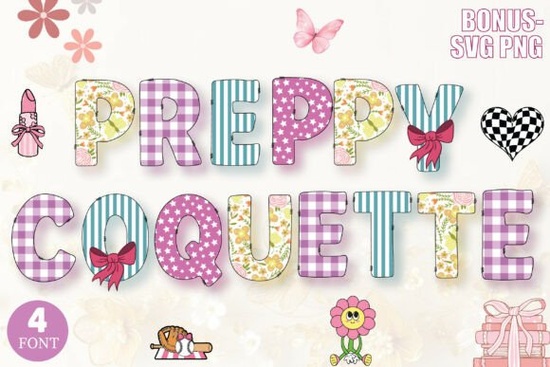
If you're looking for a decorative font that balances preppy charm with playful femininity without feeling too fussy or overly trendy the Preppy Coquette Decorative Font is a thoughtful, well-executed choice. It’s not just another script or display font; it’s a small but versatile bundle built around four distinct yet cohesive styles: Box, Flower, Star, and Simple. Each one carries the same light-hearted, polished energy think crisp lines, soft curves, and subtle decorative accents but offers enough variation to suit different projects and moods.
What makes this font bundle practical for real work?
Many decorative fonts look lovely in previews but fall short when you actually try to use them missing characters, inconsistent spacing, or limited language support. This bundle avoids those pitfalls. All four fonts include full uppercase and lowercase letters, numerals, punctuation, and basic multilingual support (including accented characters used in French, Spanish, and German). They’re also OpenType-enabled, so you’ll get ligatures and stylistic alternates where appropriate especially helpful if you’re designing invitations or social media graphics where small details matter.
Because each style shares the same underlying rhythm and proportions, mixing them within one design feels intentional, not chaotic. For example, you might use Preppy Coquette Star for a headline on a baby shower invitation, then switch to Simple for body text keeping readability high while reinforcing the theme. That kind of flexibility saves time and helps maintain brand consistency across products like planners, stickers, or sublimation mugs.
Who benefits most from using Preppy Coquette?
Print-on-demand sellers will appreciate how cleanly these fonts scale and convert to vector-friendly formats (included in both OTF and TTF). Whether you’re layering text over pastel backgrounds for Etsy mugs or creating layered SVG files for Cricut users, the clean outlines hold up well even at small sizes. The Flower and Star versions add visual interest without sacrificing legibility, which helps listings stand out in crowded marketplaces.
Crafters and scrapbookers often need fonts that pair well with paper textures, washi tape, and hand-drawn elements. These fonts do that naturally especially Box, which has a gentle, outlined structure that echoes vintage stationery. And because Creative Fabrica includes commercial licenses with clear terms, you can confidently use them on physical goods you sell no surprise restrictions later.
Small business owners building cohesive social media kits or printable collections (like weekly planners or habit trackers) will find the bundle especially useful. You don’t need to hunt down separate fonts for headers, quotes, and labels the four options cover most common uses. Plus, they coordinate easily with other popular bundles on the platform, like the Sugar Daisies Font for more whimsical moments or the Arcade Blast Font when you want contrast with bold, retro energy.
How does it compare to similar fonts?
Unlike some “coquette”-labeled fonts that lean heavily into exaggerated curls or excessive swashes, Preppy Coquette keeps things grounded. It’s friendly, not fussy. If you’ve tried fonts like Preppy Coquette Decorative Font and found them hard to pair or overly delicate, this version solves those issues. Likewise, compared to Sugar Daisies Font, it trades floral density for cleaner shapes and compared to Arcade Blast Font, it swaps pixelated energy for soft, approachable elegance.
None of these fonts replace each other they complement. Think of Preppy Coquette as your go-to for spring launches, bridal showers, school-themed merch, or feminine lifestyle branding not as a one-size-fits-all solution, but as a reliable, well-designed tool in your kit.